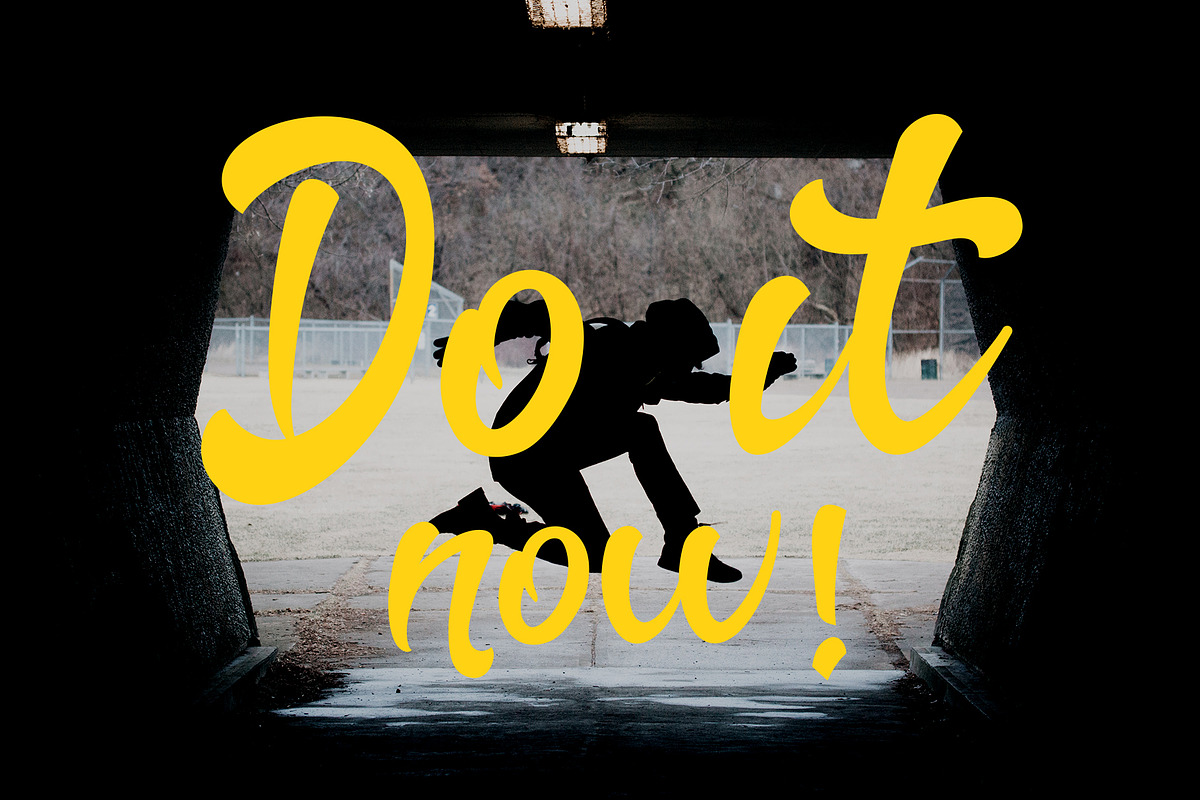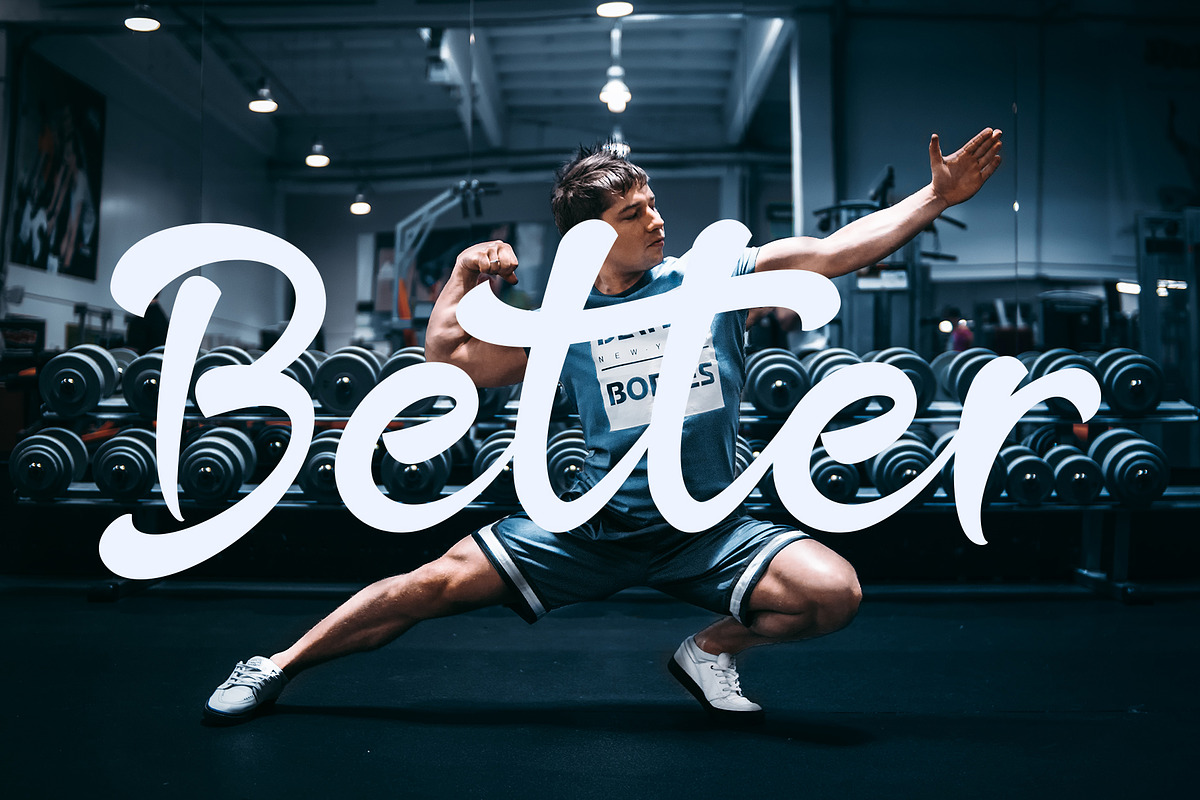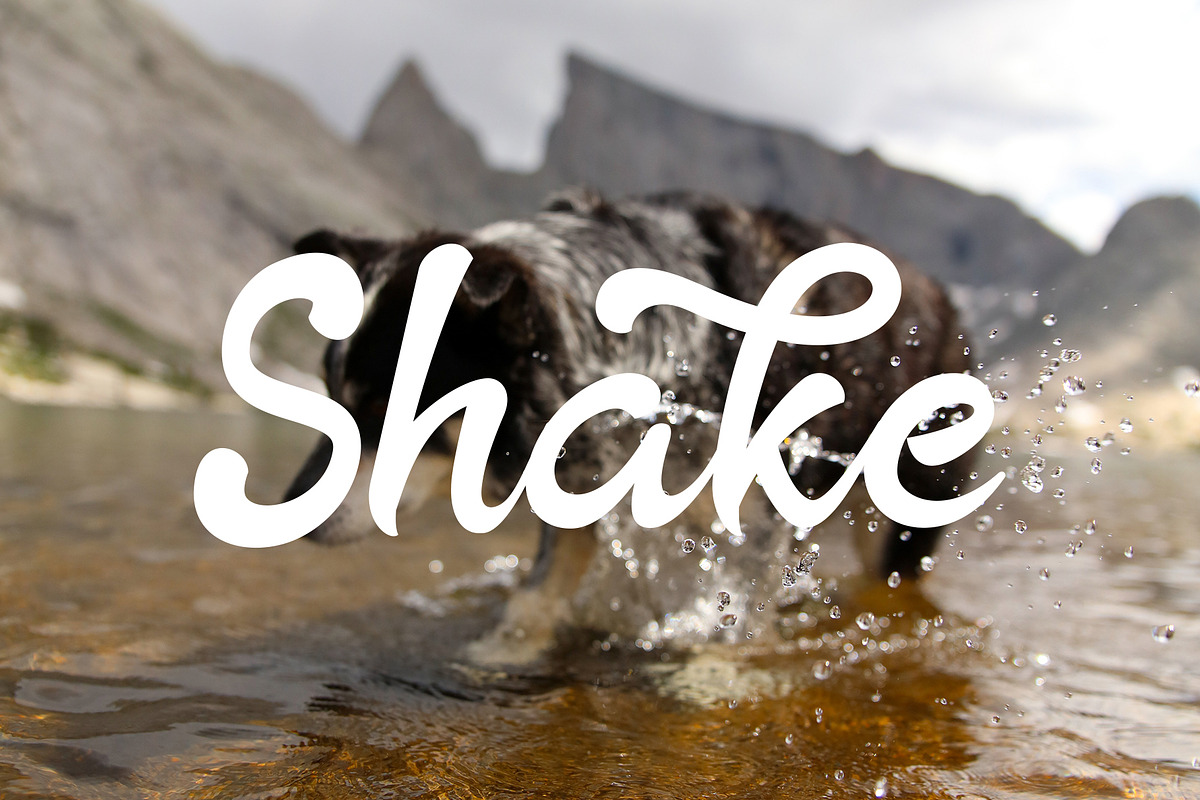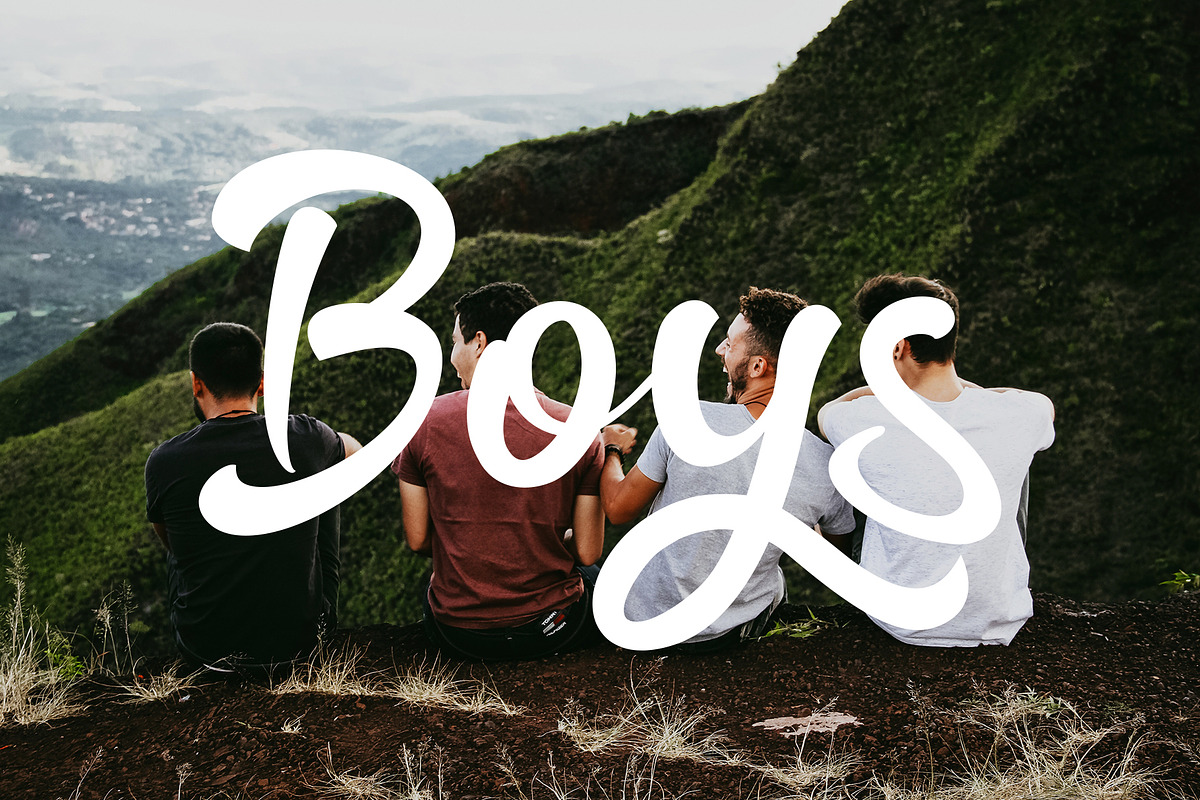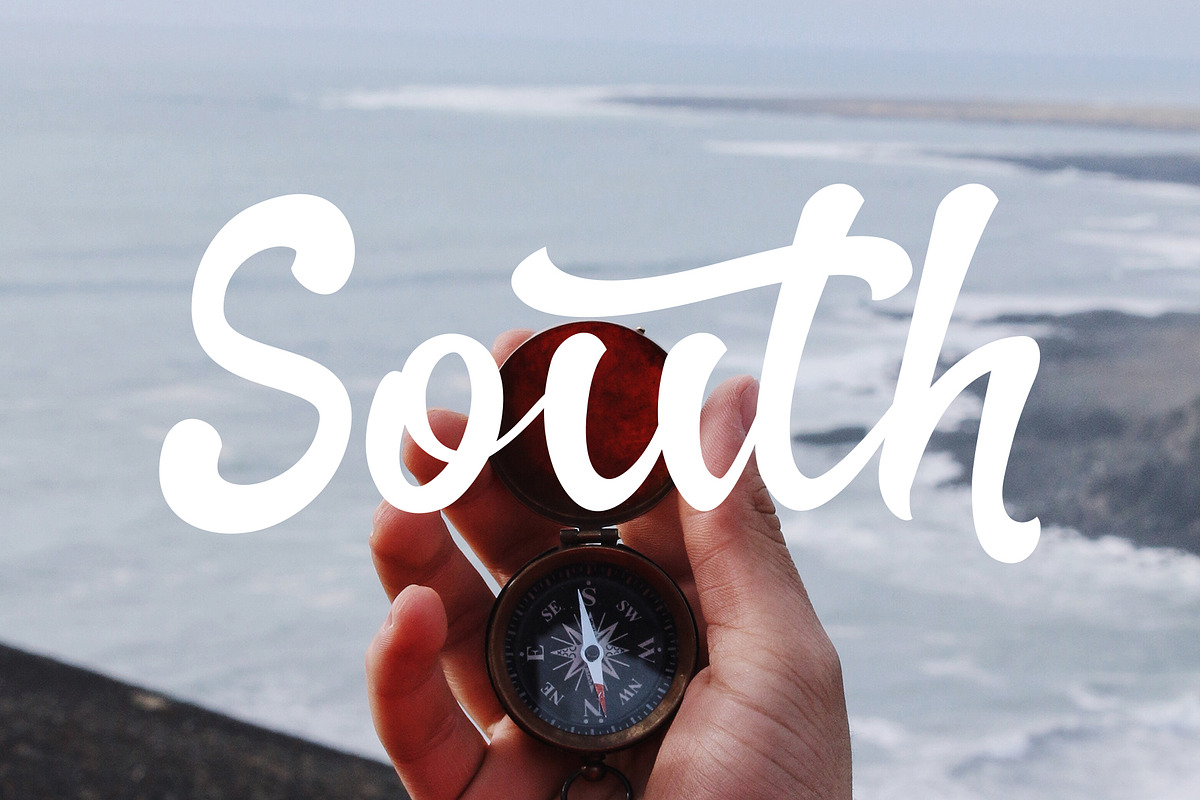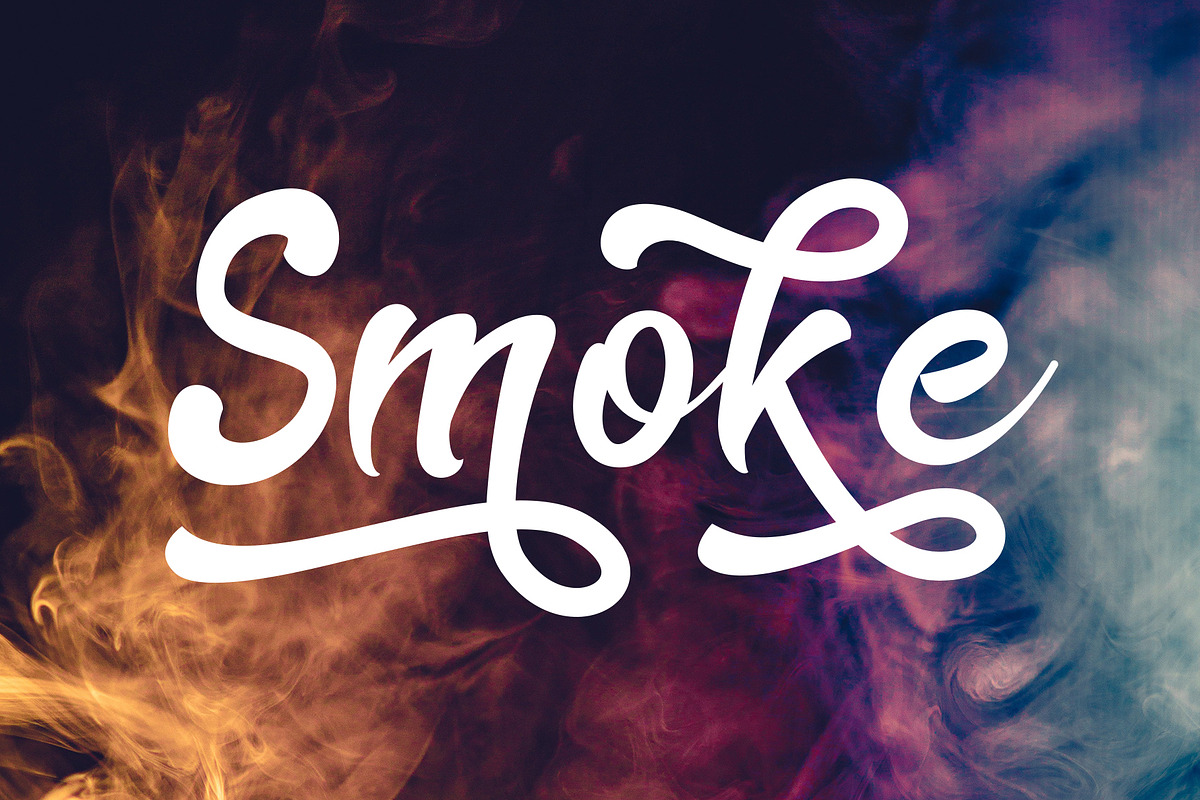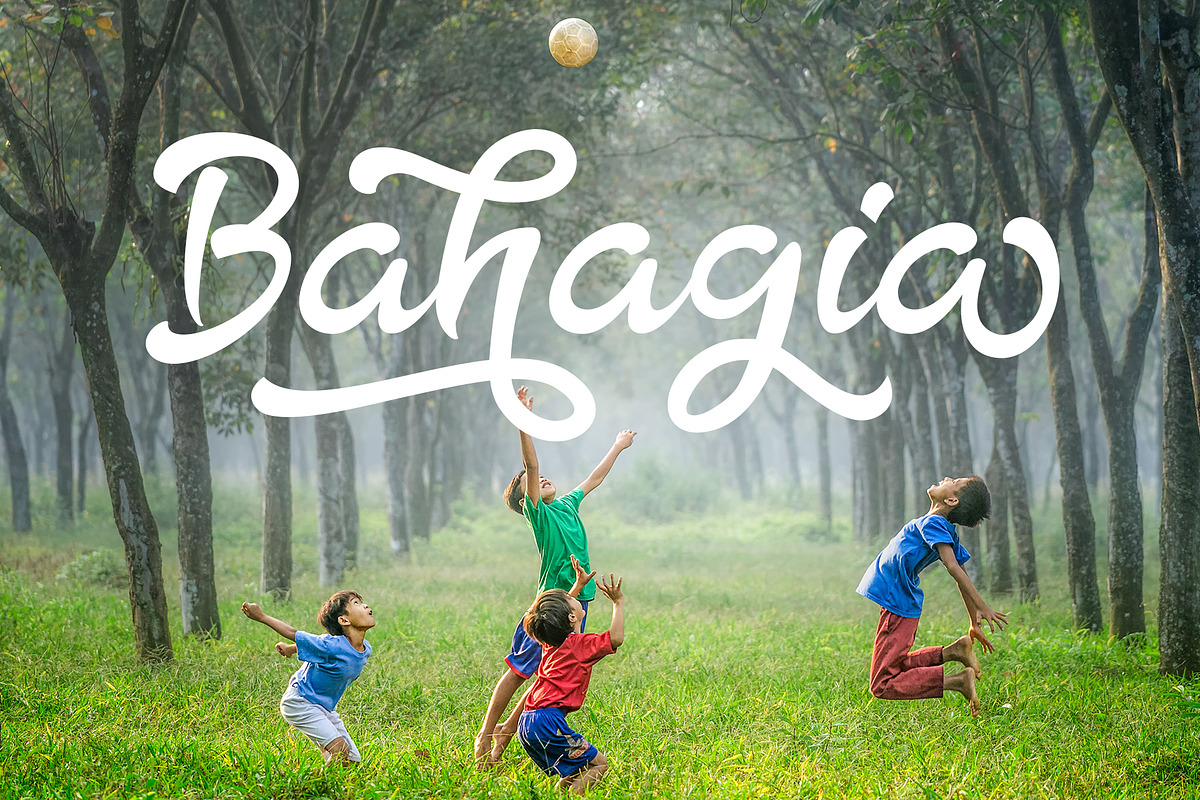
The Rainbow modern calligraphy font
The Rainbow - modern calligraphy font is a handwritten script font with a clear and relaxed style, this font is great for your next creative projects such as logos, printed quotes, invitations, cards, product packaging, headers, logotypes, letterheads, posters, clothing designs, labels, etc. .
The Rainbow comes with uppercase letters, lowercase letters, numbers, punctuation and many variations on some characters including alternative opentype and general ligatures